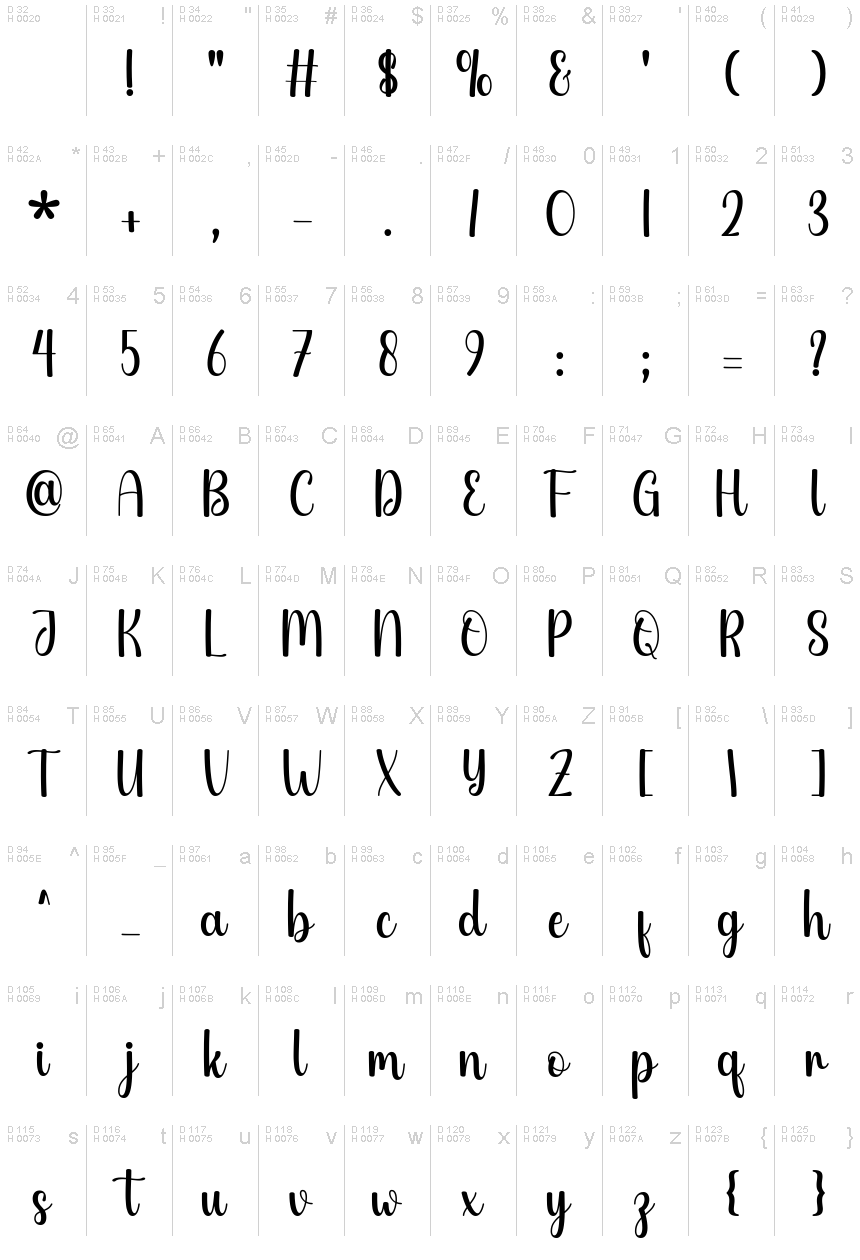
Quality
Quality, designed by Hardiboy Design, exudes a charm that is both personal and polished. This handwritten font carries an organic flow, reminiscent of elegant penmanship that gracefully connects each letter with a sense of intimacy. Its condensed style lends to a refined aesthetic, allowing words to snugly fit together like pieces of an intricate puzzle.
Perfect for invitations, branding, and packaging where a touch of human warmth is desired, Quality has the uncanny ability to make any text feel personally addressed. Its stylish quirks are sure to leave an impression on boutique labels and bespoke stationary that call for a font with character and class.